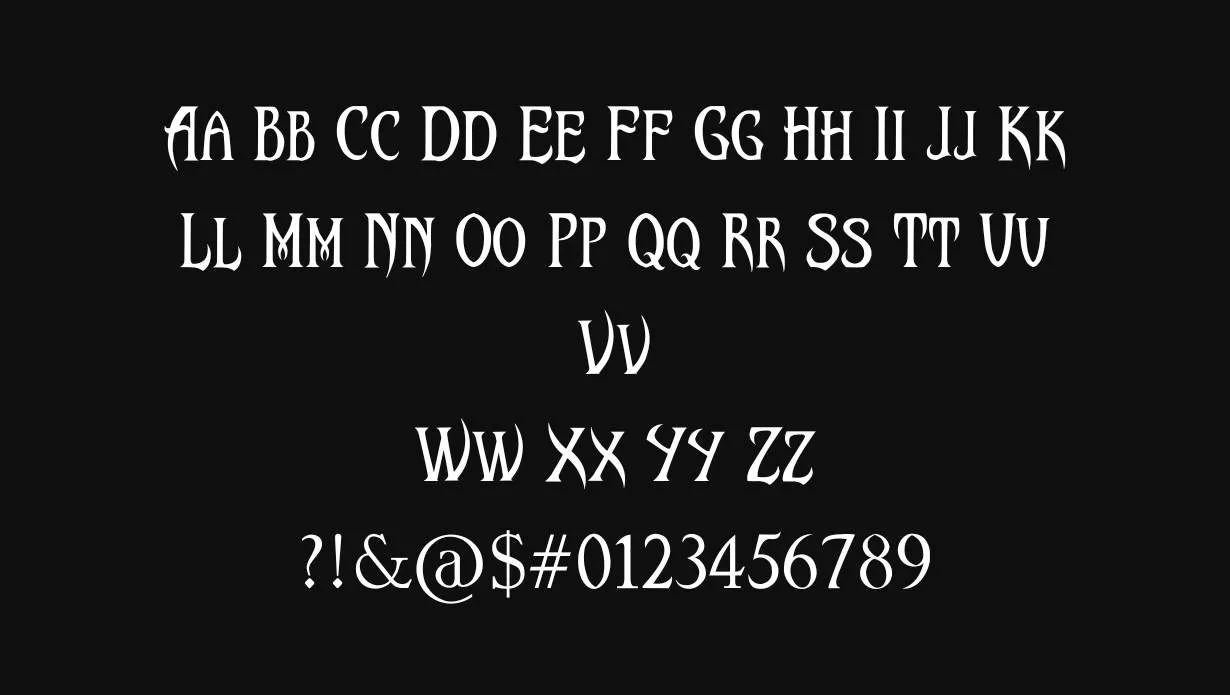
Malefic Font is a decorative and imaginative typeface known for its bold and expressive design. It’s frequently used in creative advertising, branding, and headline text where designers want to create a striking visual impact.
The font’s unconventional and intricate letterforms make it stand out and capture attention.
| Name | Malefic Font |
| Designer | Achmad Yani |